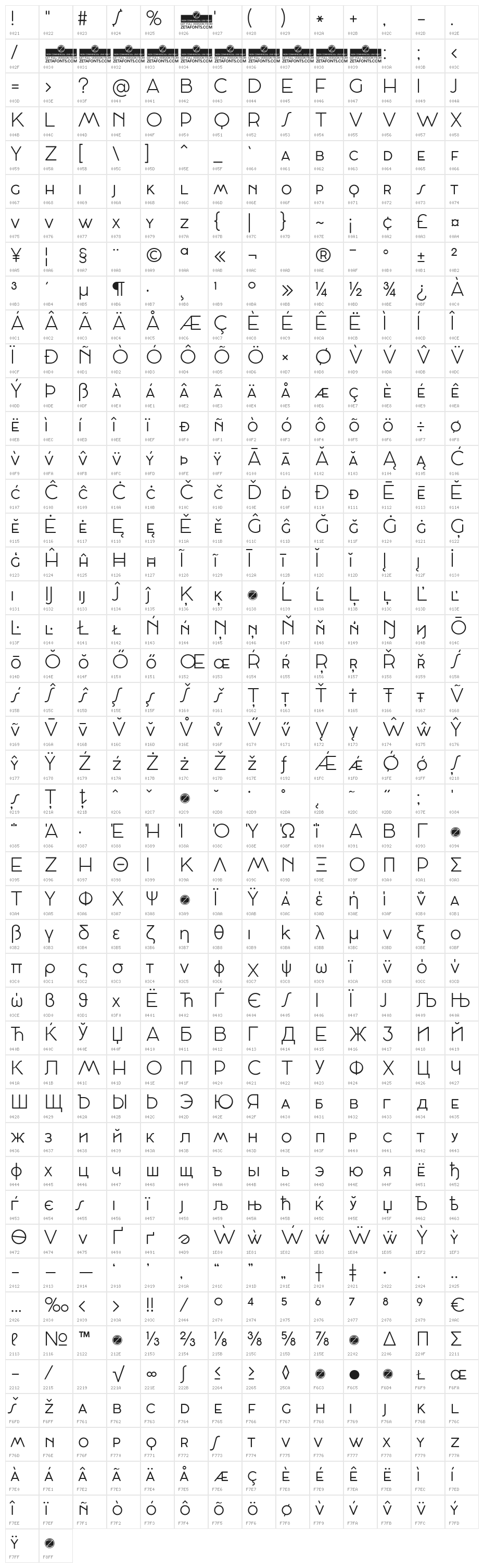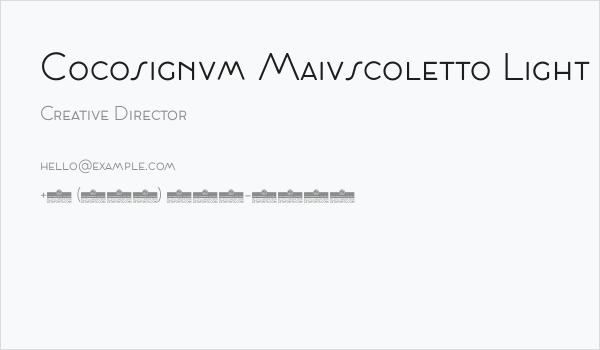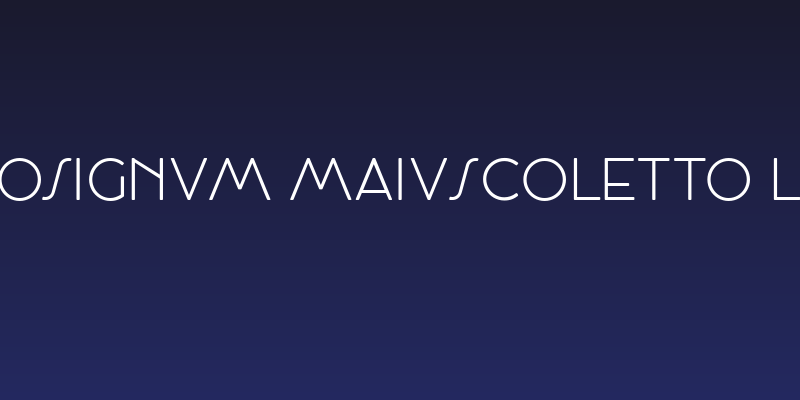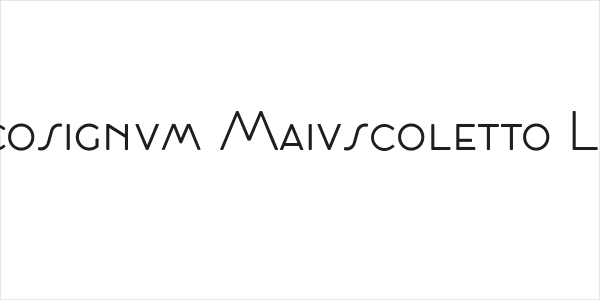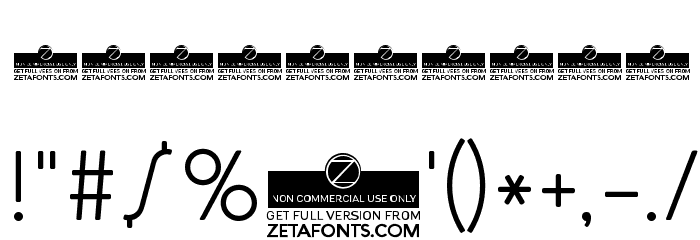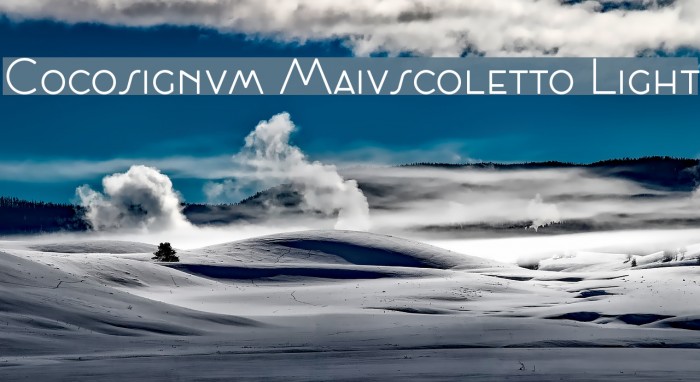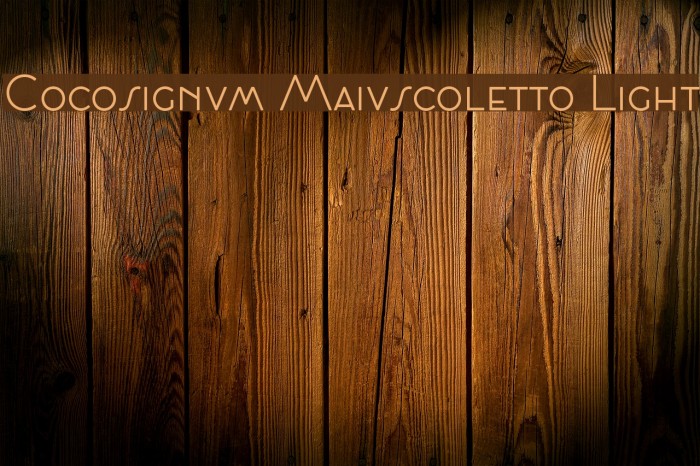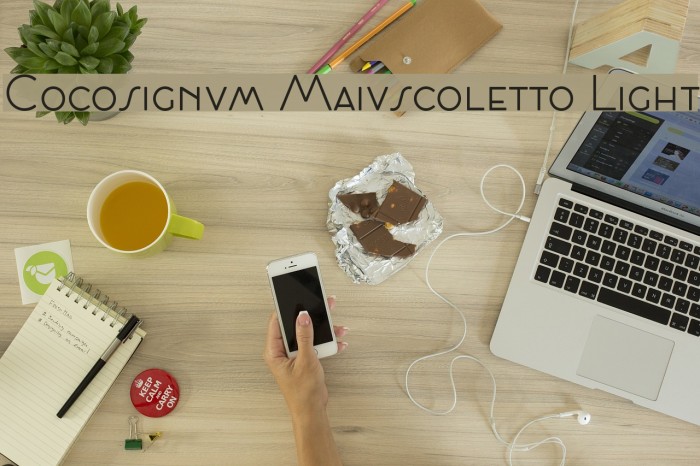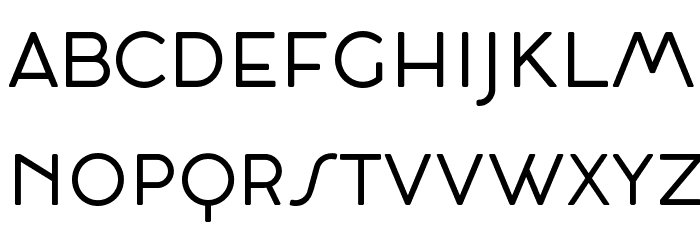
Cocosignum Maiuscoletto Light Font
Cocosignum Maiuscoletto Light Description
This typeface features a clean and modern design with a geometric structure. The characters are uniform in width, contributing to a balanced and harmonious appearance. The strokes are consistent and smooth, with rounded edges that soften the overall look. The uppercase and lowercase letters maintain a cohesive style, making it versatile for various applications. The numerals and special characters are designed to match the letterforms, ensuring a seamless integration in text. This font is ideal for projects that require a contemporary and minimalist aesthetic.
| Use Case | Headlines, Body text, Logos |
| Proposed Projects | Ideal for branding, web design, advertising, and editorial projects that require a clean and modern look. |